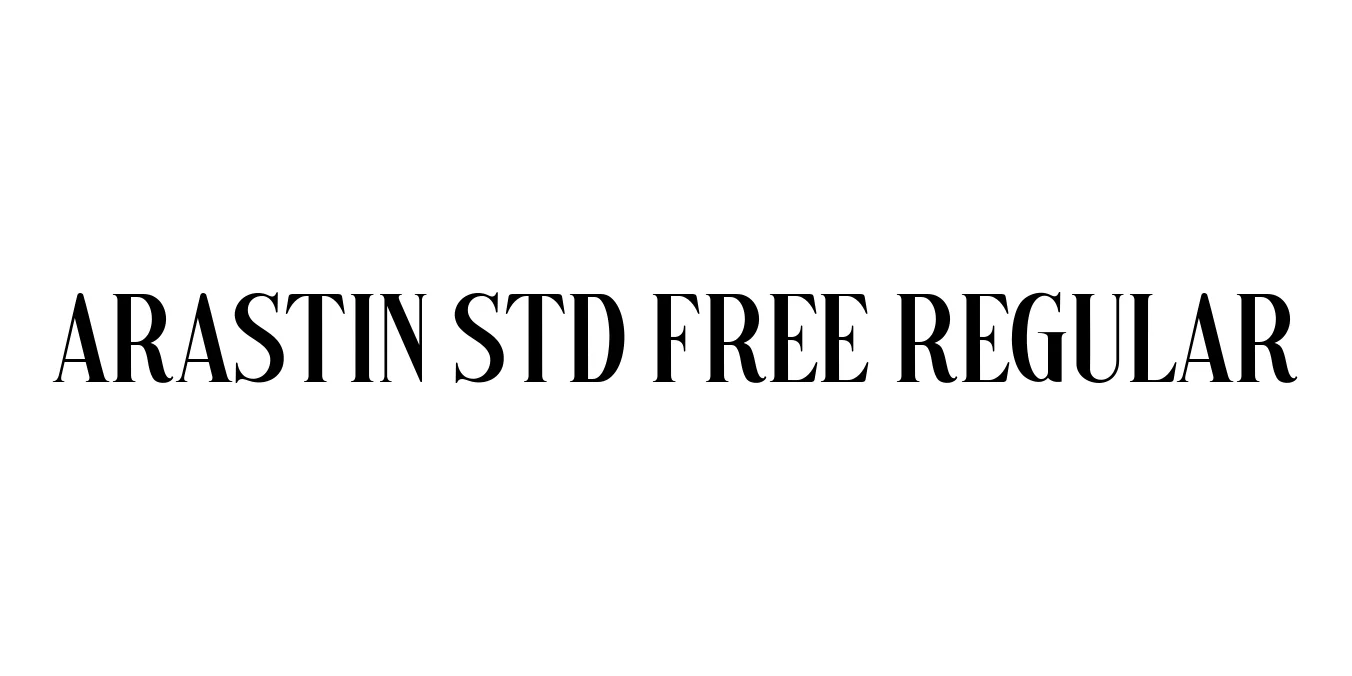
Arastin Std FREE Regular
| Similar Fonts | Playfair Display, Bodoni, Cinzel, Caslon |
Arastin Std FREE Regular is a sophisticated serif typeface characterized by its elegant curves and high-contrast stroke weights. Developed by Alit Design, this font was crafted to bridge the gap between classic editorial aesthetics and modern digital display requirements. Its sharp serifs and fluid transitions evoke a sense of luxury and timelessness, making it a favorite for high-end visual identities and premium typography projects.
Historically, the Arastin series was developed to offer designers a versatile tool for fashion-oriented layouts and sophisticated brand storytelling. The FREE version allows users to experience its refined character set, which maintains exceptional legibility even in complex display settings. It has become a popular choice for creative professionals seeking a balance between authoritative weight and artistic flair.
Arastin Std FREE Regular Best Uses
Ideal for creating high-end, luxury brand identities.
Perfect for magazine headers, titles, and fashion spreads.
Adds a sophisticated and romantic touch to invitations.
Best used for elegant headlines and decorative hero sections.